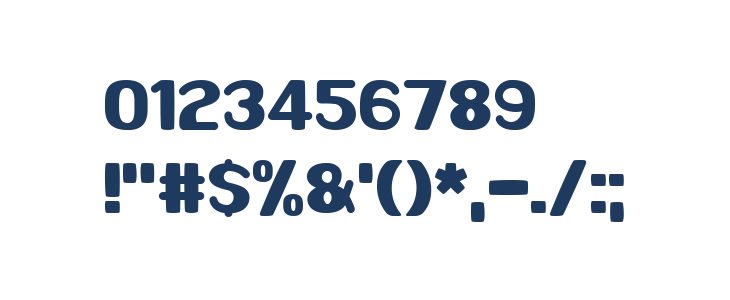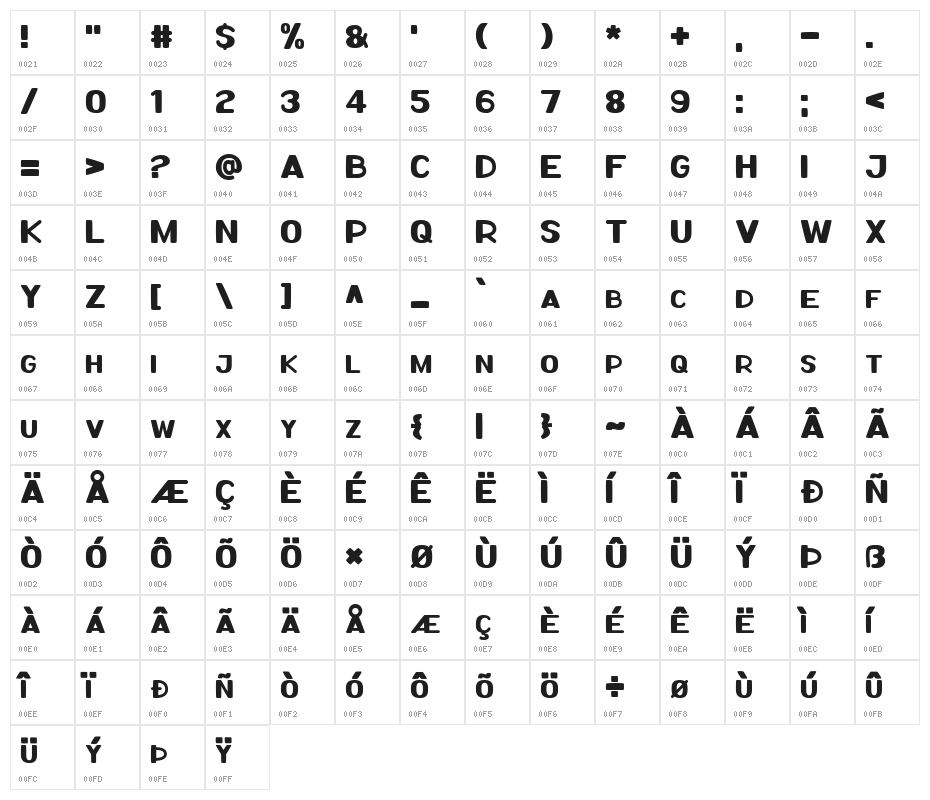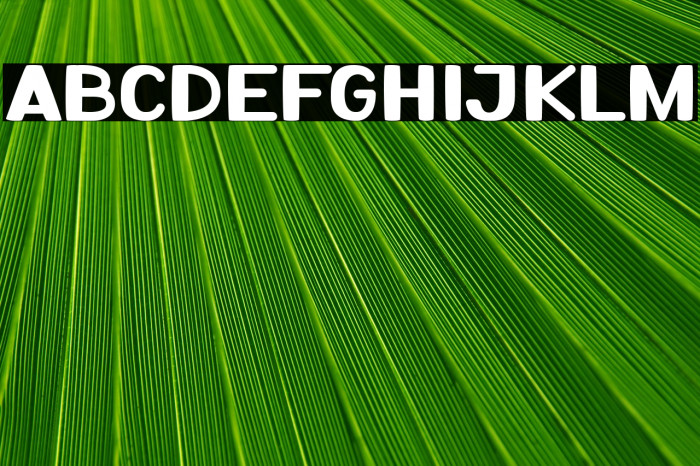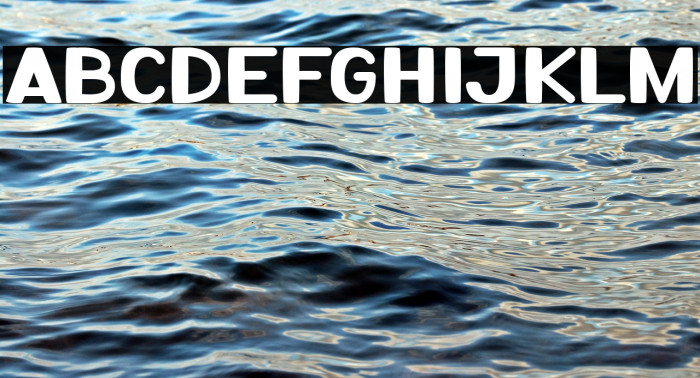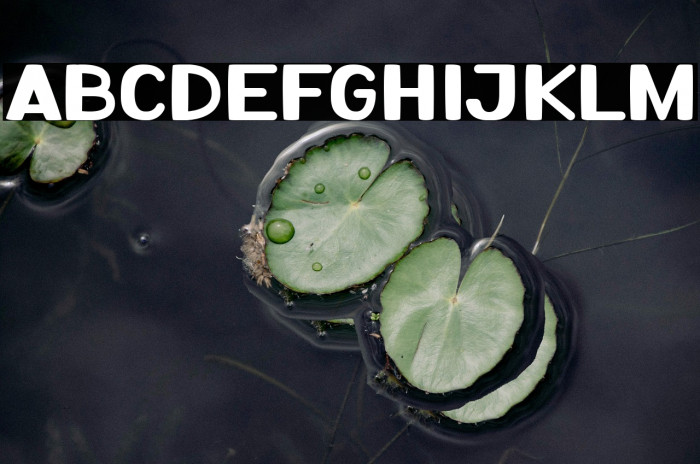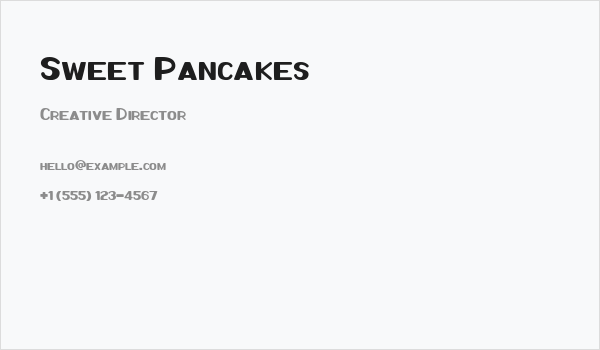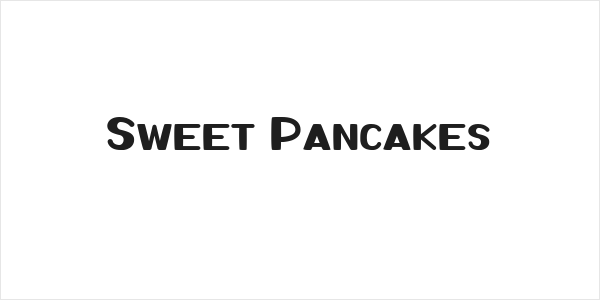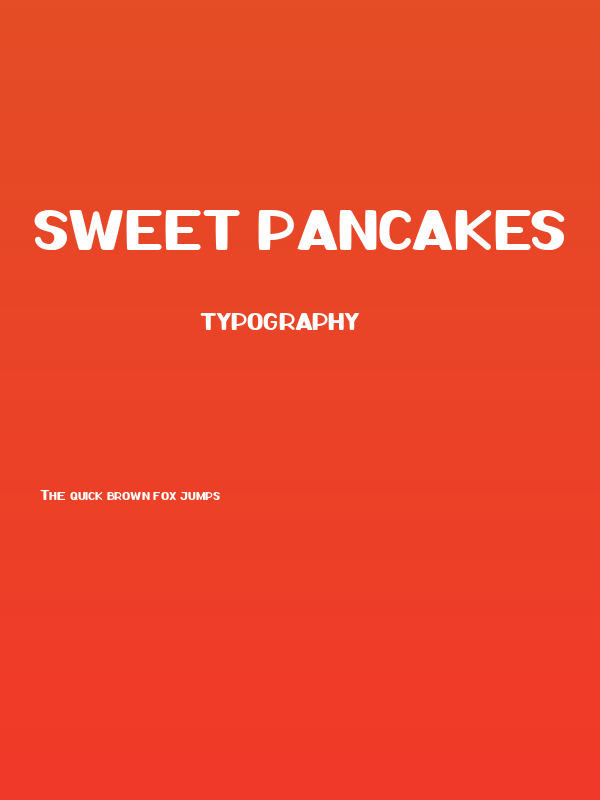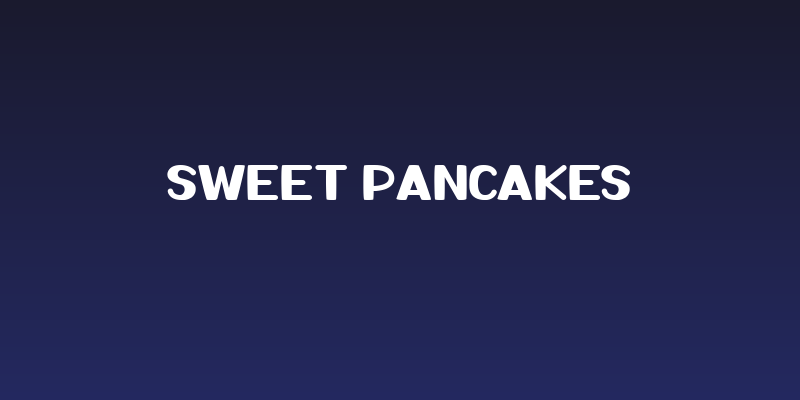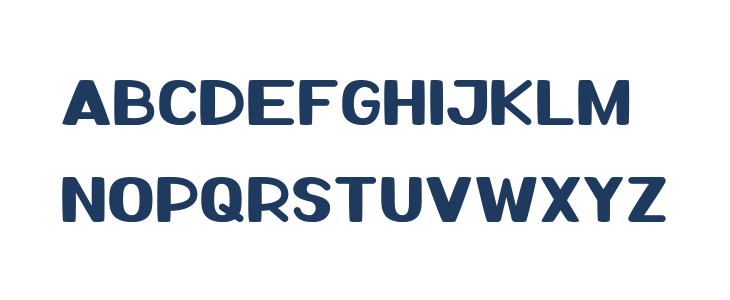
Sweet Pancakes Font
Sweet Pancakes Description
This font features a bold and playful style, characterized by its rounded edges and thick strokes. The letters are uniformly bold, giving a sense of strength and approachability. The characters are slightly condensed, allowing for efficient use of space while maintaining readability. The numbers and special characters follow the same design principles, ensuring consistency across all glyphs. This font's design is modern yet retains a touch of whimsy, making it suitable for a variety of creative applications.
| Proposed Projects | Ideal for children's books, playful branding, posters, and packaging design. |